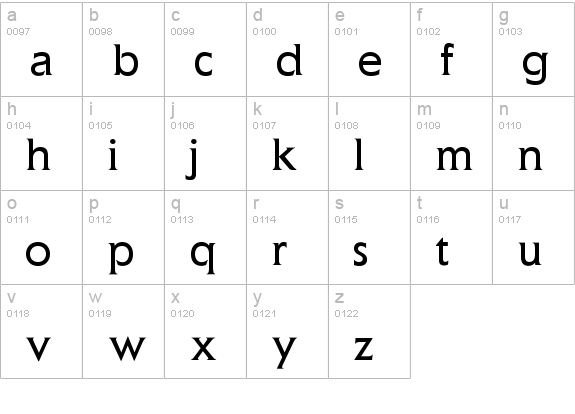
ElanBook font is a versatile typeface that exudes elegance and sophistication. With its clean lines and modern aesthetic, this font is perfect for a wide range of design projects, from branding to editorial design. Its timeless appeal makes it a go-to choice for designers looking to make a statement with their typography. What sets ElanBook font apart is not just its aesthetic appeal, but also the fact that it is available for free download. Yes, you read that right - this high-quality font can be yours at no cost! Simply head over to FontsMarket.com to download ElanBook font and start using it in your projects today. Whether you're working on a website, a poster, a logo, or any other design project, ElanBook font is sure to elevate your work and give it that extra touch of sophistication. Don't miss out on this opportunity to add a touch of elegance to your designs with ElanBook font - download it for free now!